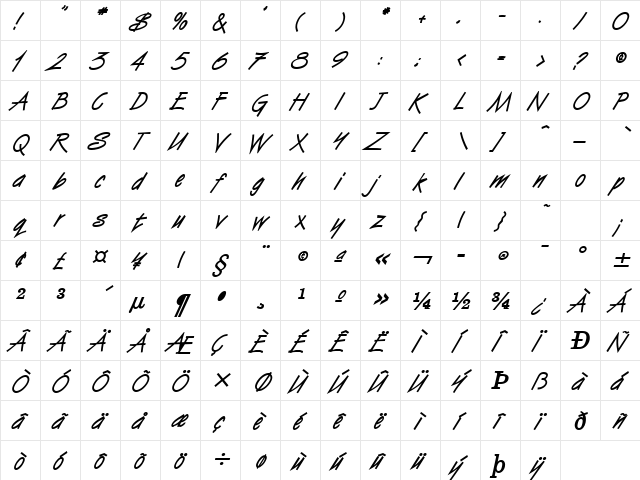
Vizier Heavy Italic
Design Context for Vizier Heavy Typeface
Vizier Heavy is a composed and adaptable typeface that performs quietly and consistently across a wide range of design contexts. The dynamic lean of this cut emphasises speed and emphasis in any layout.